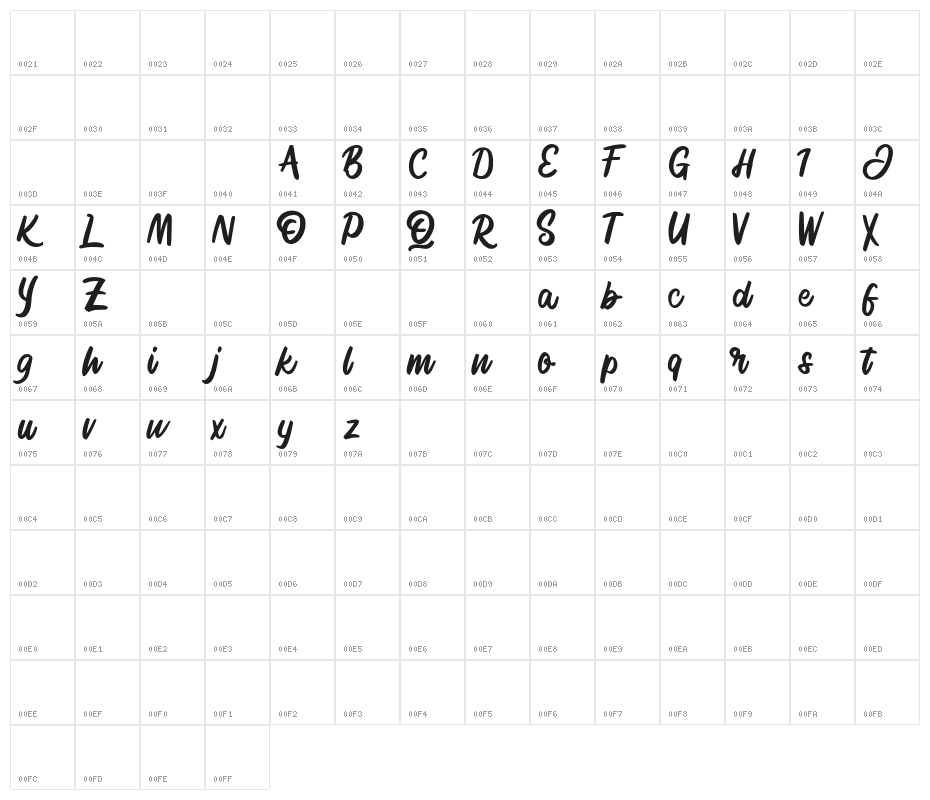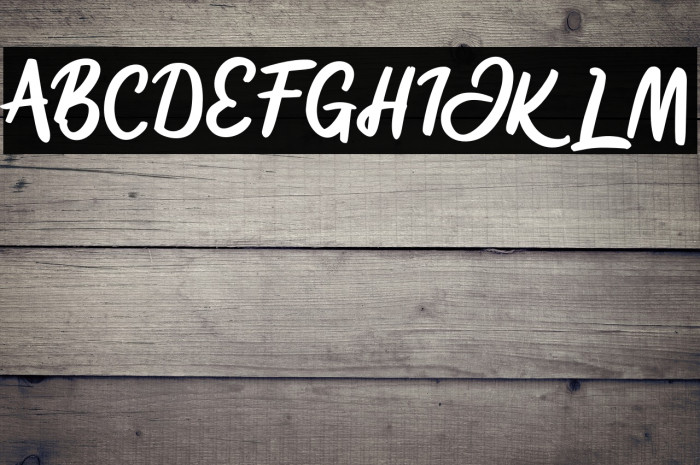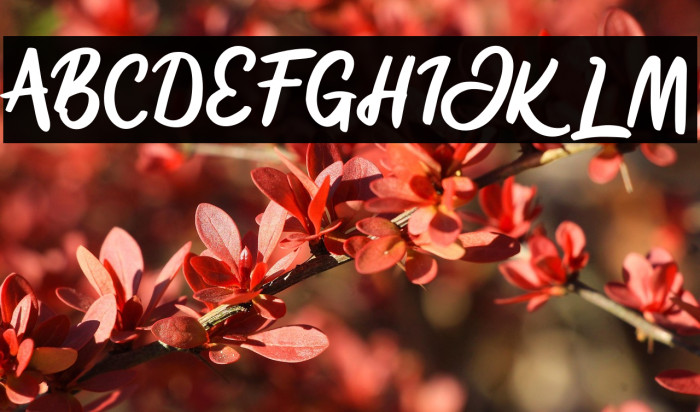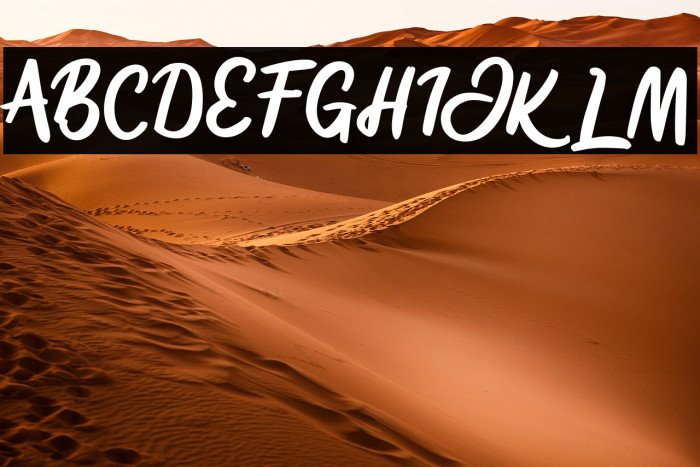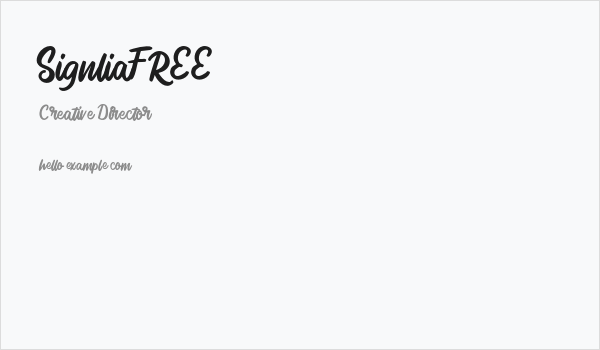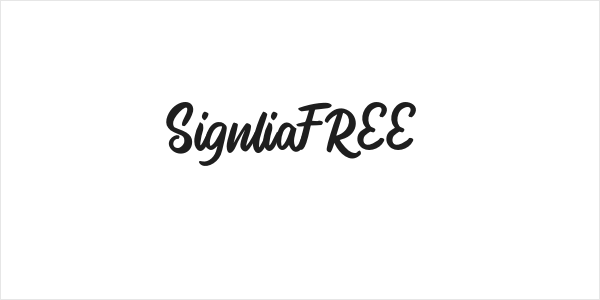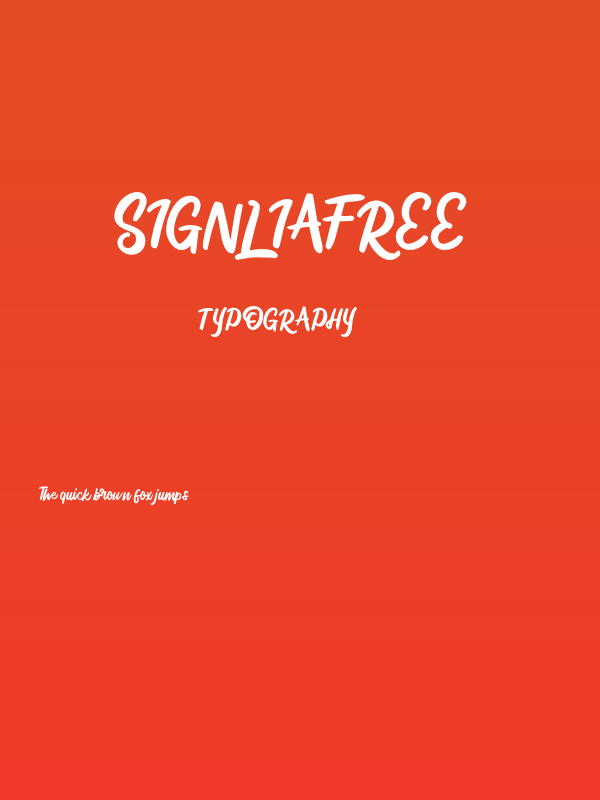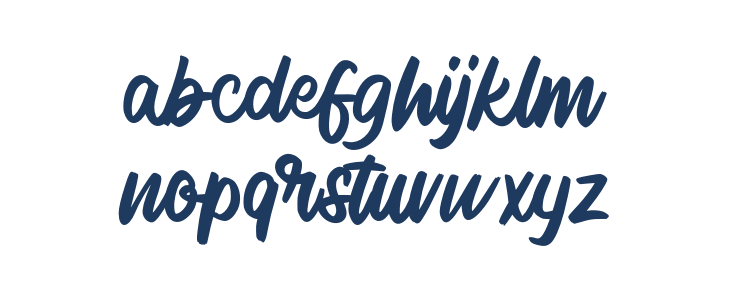
SignliaFREE Font
SignliaFREE Description
This font features a bold and expressive script style, characterized by its flowing, cursive letterforms that convey a sense of elegance and dynamism. The uppercase letters are slightly more structured, while the lowercase letters exhibit a more fluid and connected style, enhancing the overall aesthetic. The strokes are thick and consistent, providing a strong visual impact. The font maintains a balanced contrast, with smooth curves and rounded edges that add to its approachable and friendly appearance. It is well-suited for creative and artistic projects, where a touch of personality and flair is desired.
| Use Case | Logos, Headlines, Artistic designs |
| Proposed Projects | Ideal for branding, invitations, greeting cards, and artistic designs. |